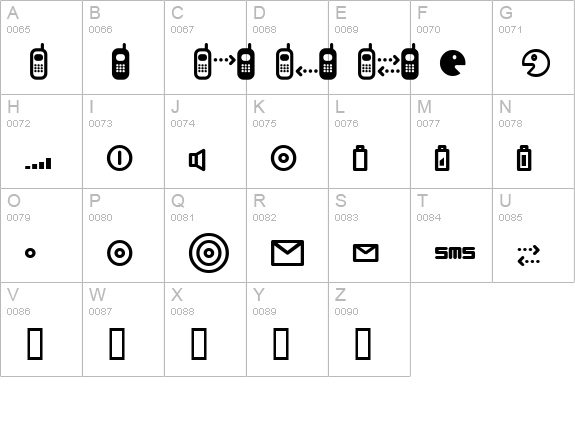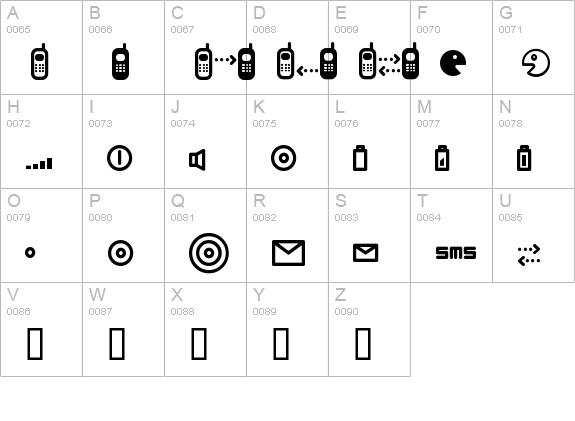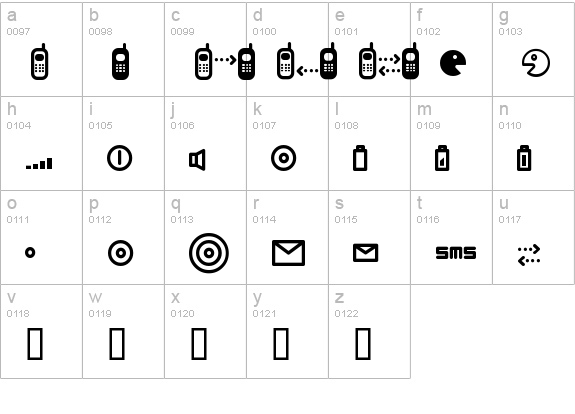
cellpic Font Details
Introducing the exquisite Cellpic font - a sleek and modern typeface designed to add a touch of sophistication to your projects. This versatile font features clean lines and a contemporary style that is perfect for a wide range of design applications. Whether you're working on branding, posters, invitations, or any other creative project, Cellpic is sure to make a bold statement. The best part? Cellpic is available for free download at FontsMarket.com! That's right, you can easily access this stunning font without any cost, making it a valuable addition to your font collection. Don't miss out on the opportunity to elevate your designs with the unique charm of Cellpic font. Download it today and start creating eye-catching visuals that stand out from the crowd.